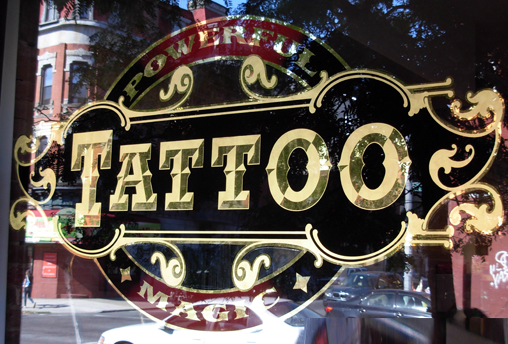
Glass Signs (Showcase your work here!)
Re: Glass Signs (Showcase your work here!)
Nice to see you here and showing your new work. Looks like we have another convert. Welcome to the religion. hahaha.
The materials and method you described sound fine. I noticed you also requested any comments on technique previously. I suspect no one answered because there was nothing wrong with your description. Your description exhibited the same thinking that how most of us would have.
My only thought regarding water-gilding aluminium leaf is it requires a stronger water-size that gold leaf. You should adjust the strength of the size according to the type of leaf. Heavier leaf (silver/copper/brass/aluminium) generally adhere better with a stronger size.
I note you used white behind the white metal and yellow ochre behind the gold. I normally go straight over with my black backing. Generally, if the gilding is correctly done, the colour of the backing paint isn't important. If you have small cracks and holes, this colour may help to hide small imperfections, but if they are big enough to show, it is better to patch them with the leaf.
Sometimes, if it suits the design, the metal can be abraded (partly rubbed off) in order to deliberately show the background colour.
Nice to see you here and showing your new work. Looks like we have another convert. Welcome to the religion. hahaha.
The materials and method you described sound fine. I noticed you also requested any comments on technique previously. I suspect no one answered because there was nothing wrong with your description. Your description exhibited the same thinking that how most of us would have.
My only thought regarding water-gilding aluminium leaf is it requires a stronger water-size that gold leaf. You should adjust the strength of the size according to the type of leaf. Heavier leaf (silver/copper/brass/aluminium) generally adhere better with a stronger size.
I note you used white behind the white metal and yellow ochre behind the gold. I normally go straight over with my black backing. Generally, if the gilding is correctly done, the colour of the backing paint isn't important. If you have small cracks and holes, this colour may help to hide small imperfections, but if they are big enough to show, it is better to patch them with the leaf.
Sometimes, if it suits the design, the metal can be abraded (partly rubbed off) in order to deliberately show the background colour.
Next project is to try some glue chipping. I have hide glue, sand for sandblasting (not very fine), I just need to build a chamber to chip inside and some heat lamps inside to set down the humidity.
I wanted to share a fun job that I did in Brooklyn NY not too long ago.
I wish I knew how to do that! Beautiful
Bob that looks good.
What font is that, is it already prismatic or did you do that yourself?
Erik, The 'POWERFUL MAGIC' is LHF Boston Truckstyle, and the 'TATTOO' is LHF Jumbo Spurs FULL, matte and burnished finished to acheive the prismatic effect. The font comes with a few different variations. The entire job is a 2 tone 23k job. The background panel consists of a few different panels I took apart and customized. The actual job is 65"wide and completed on location in one day.
Lars, I like your work alot! This job is the same basic proceedure as the work you are doing with 2 differences. 1- The shapes & eliments of the designs are different. Try to 'think' in terms of shape and balance, and experiment with your designs. 2- This job is done on location instead of in the shop which makes for some interesting challenges!